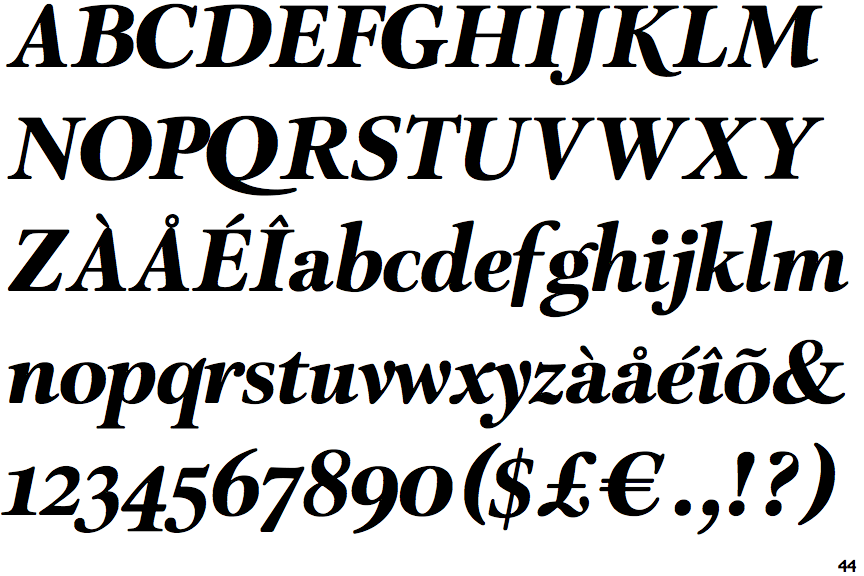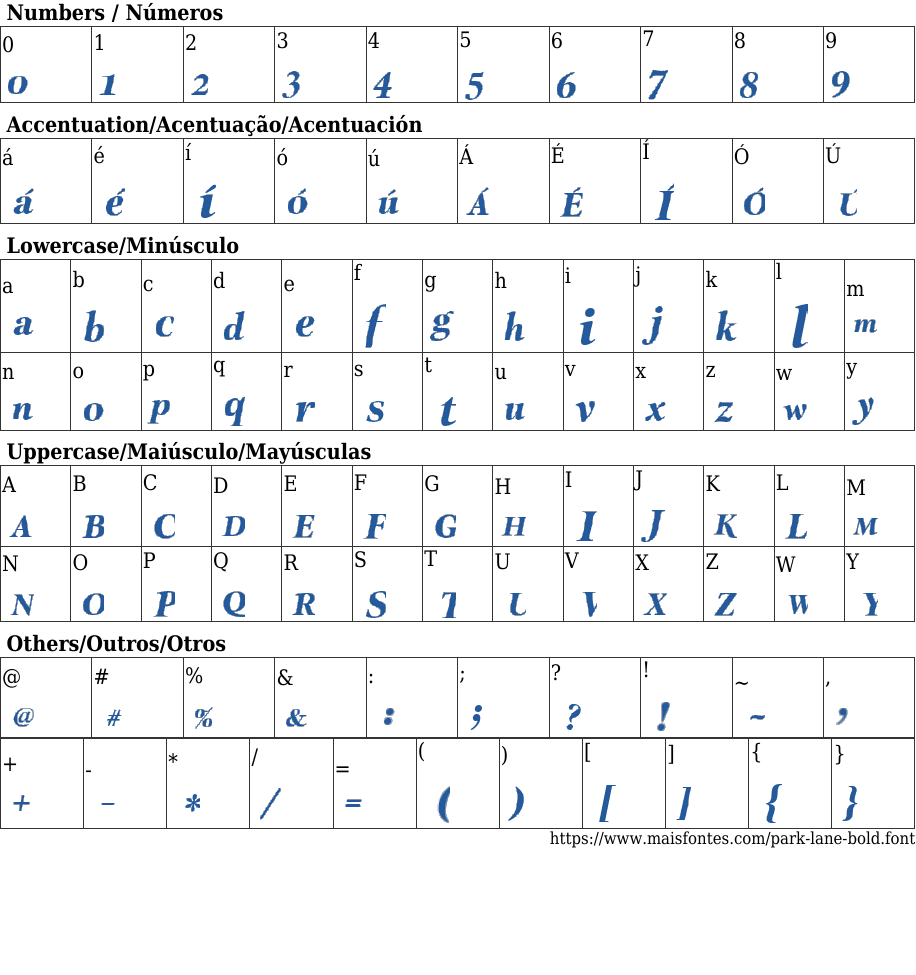
Park Lane Bold Font . A classic italic roman with a set of alternative swash caps and a number of original swash lower case characters that can create a. Download park lane nf font · free for commercial use · this font is a reworking of an old mecanorma font, called simply art deco. Download and install the park lane font by nicks fonts. The park lane font has been downloaded 32,093 times. Park lane bold by alanmeeks. Park lane font contains 393 defined characters and 85 unique glyphs. Park lane nf font | dafont.com english français español deutsch italiano português. A classic italic roman with a set of alternative swash caps and a number of original swash lower case charactures that can create a number of.
The park lane font has been downloaded 32,093 times. Park lane bold by alanmeeks. A classic italic roman with a set of alternative swash caps and a number of original swash lower case charactures that can create a number of. Park lane font contains 393 defined characters and 85 unique glyphs. Download and install the park lane font by nicks fonts. Park lane nf font | dafont.com english français español deutsch italiano português. Download park lane nf font · free for commercial use · this font is a reworking of an old mecanorma font, called simply art deco. A classic italic roman with a set of alternative swash caps and a number of original swash lower case characters that can create a.
Park Lane Bold Font Download and install the park lane font by nicks fonts. Park lane font contains 393 defined characters and 85 unique glyphs. The park lane font has been downloaded 32,093 times. Park lane bold by alanmeeks. Download and install the park lane font by nicks fonts. A classic italic roman with a set of alternative swash caps and a number of original swash lower case charactures that can create a number of. Download park lane nf font · free for commercial use · this font is a reworking of an old mecanorma font, called simply art deco. A classic italic roman with a set of alternative swash caps and a number of original swash lower case characters that can create a. Park lane nf font | dafont.com english français español deutsch italiano português.
Park Lane NF Font · 1001 Fonts Park Lane Bold Font A classic italic roman with a set of alternative swash caps and a number of original swash lower case charactures that can create a number of. Download and install the park lane font by nicks fonts. Park lane bold by alanmeeks. Park lane nf font | dafont.com english français español deutsch italiano português. Park lane font contains 393 defined characters. Park Lane Bold Font.
Park Lane NF free font Park Lane Bold Font Park lane nf font | dafont.com english français español deutsch italiano português. Download park lane nf font · free for commercial use · this font is a reworking of an old mecanorma font, called simply art deco. A classic italic roman with a set of alternative swash caps and a number of original swash lower case charactures that can create. Park Lane Bold Font.
Park Avenue Bold Font Park Lane Bold Font Park lane nf font | dafont.com english français español deutsch italiano português. A classic italic roman with a set of alternative swash caps and a number of original swash lower case characters that can create a. Park lane bold by alanmeeks. A classic italic roman with a set of alternative swash caps and a number of original swash lower case. Park Lane Bold Font.
New York Park Lane Hotel Style Refresh Park Lane Bold Font Download park lane nf font · free for commercial use · this font is a reworking of an old mecanorma font, called simply art deco. A classic italic roman with a set of alternative swash caps and a number of original swash lower case charactures that can create a number of. The park lane font has been downloaded 32,093 times.. Park Lane Bold Font.
Aggiornamento dello stile dell'hotel New York Park Lane Storia e Park Lane Bold Font A classic italic roman with a set of alternative swash caps and a number of original swash lower case characters that can create a. The park lane font has been downloaded 32,093 times. Download park lane nf font · free for commercial use · this font is a reworking of an old mecanorma font, called simply art deco. Park lane. Park Lane Bold Font.
Trailer Park Lane Bold font details Park Lane Bold Font Park lane bold by alanmeeks. Download park lane nf font · free for commercial use · this font is a reworking of an old mecanorma font, called simply art deco. Park lane nf font | dafont.com english français español deutsch italiano português. A classic italic roman with a set of alternative swash caps and a number of original swash lower. Park Lane Bold Font.
Park Lane Font Fontspring Park Lane Bold Font Download and install the park lane font by nicks fonts. Download park lane nf font · free for commercial use · this font is a reworking of an old mecanorma font, called simply art deco. A classic italic roman with a set of alternative swash caps and a number of original swash lower case characters that can create a. A. Park Lane Bold Font.
Identifont Park Lane Bold Font Park lane nf font | dafont.com english français español deutsch italiano português. Download and install the park lane font by nicks fonts. Park lane bold by alanmeeks. Download park lane nf font · free for commercial use · this font is a reworking of an old mecanorma font, called simply art deco. Park lane font contains 393 defined characters and. Park Lane Bold Font.
National Park Font Download Park Lane Bold Font Download and install the park lane font by nicks fonts. A classic italic roman with a set of alternative swash caps and a number of original swash lower case charactures that can create a number of. Park lane nf font | dafont.com english français español deutsch italiano português. Park lane font contains 393 defined characters and 85 unique glyphs. The. Park Lane Bold Font.
Park Lane NF Font Park Lane Bold Font Park lane bold by alanmeeks. Park lane nf font | dafont.com english français español deutsch italiano português. Park lane font contains 393 defined characters and 85 unique glyphs. A classic italic roman with a set of alternative swash caps and a number of original swash lower case characters that can create a. A classic italic roman with a set of. Park Lane Bold Font.